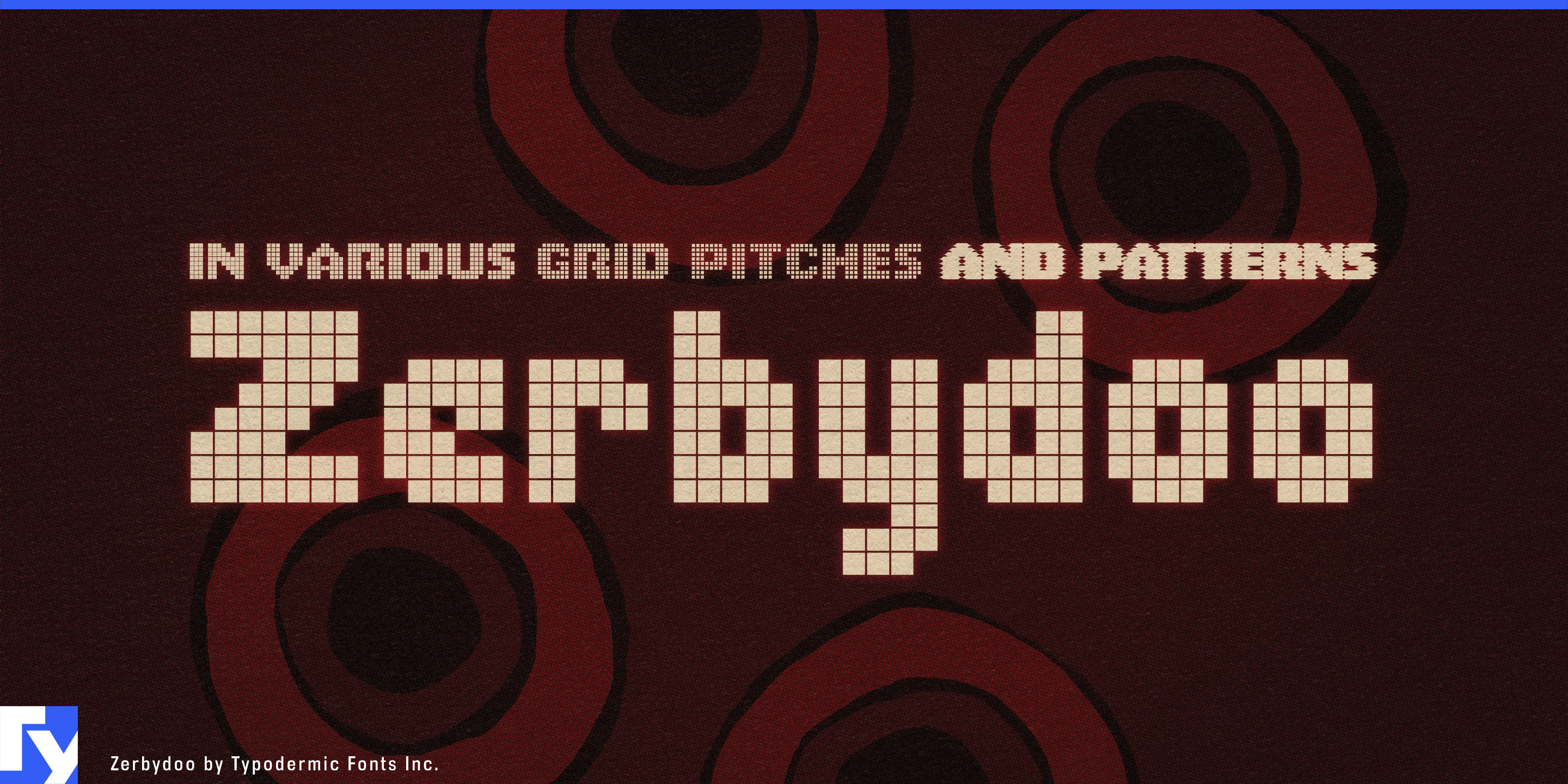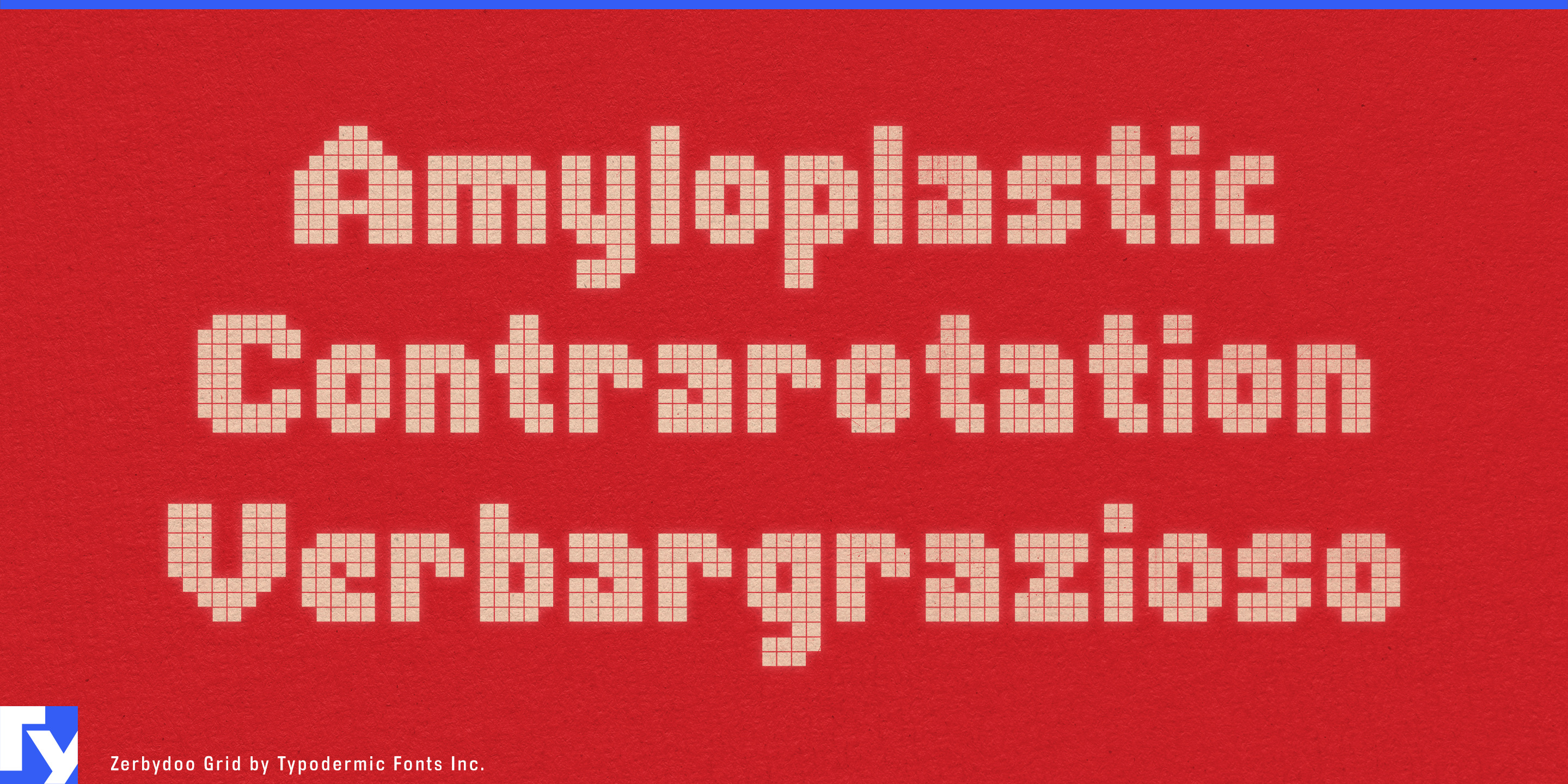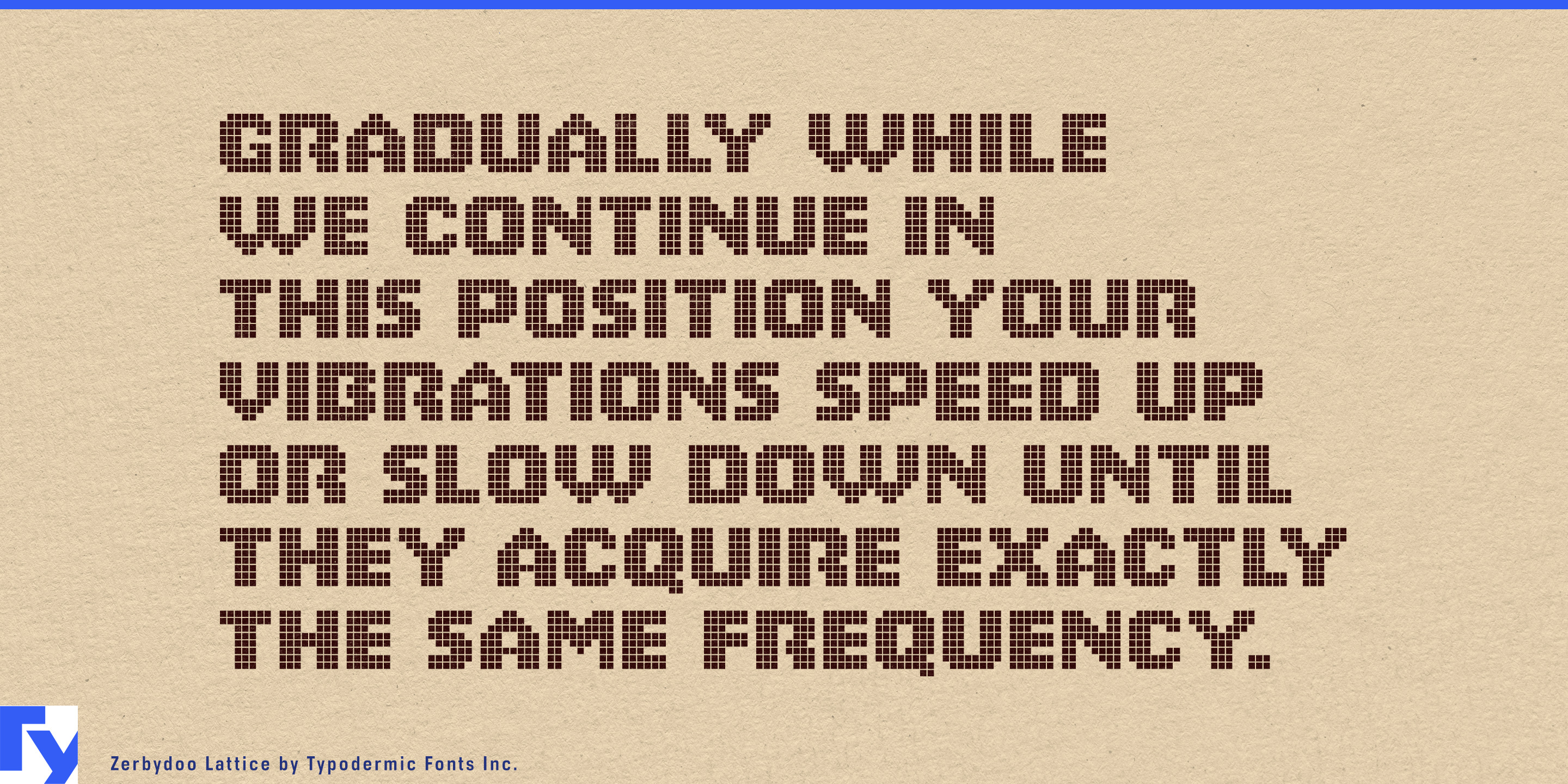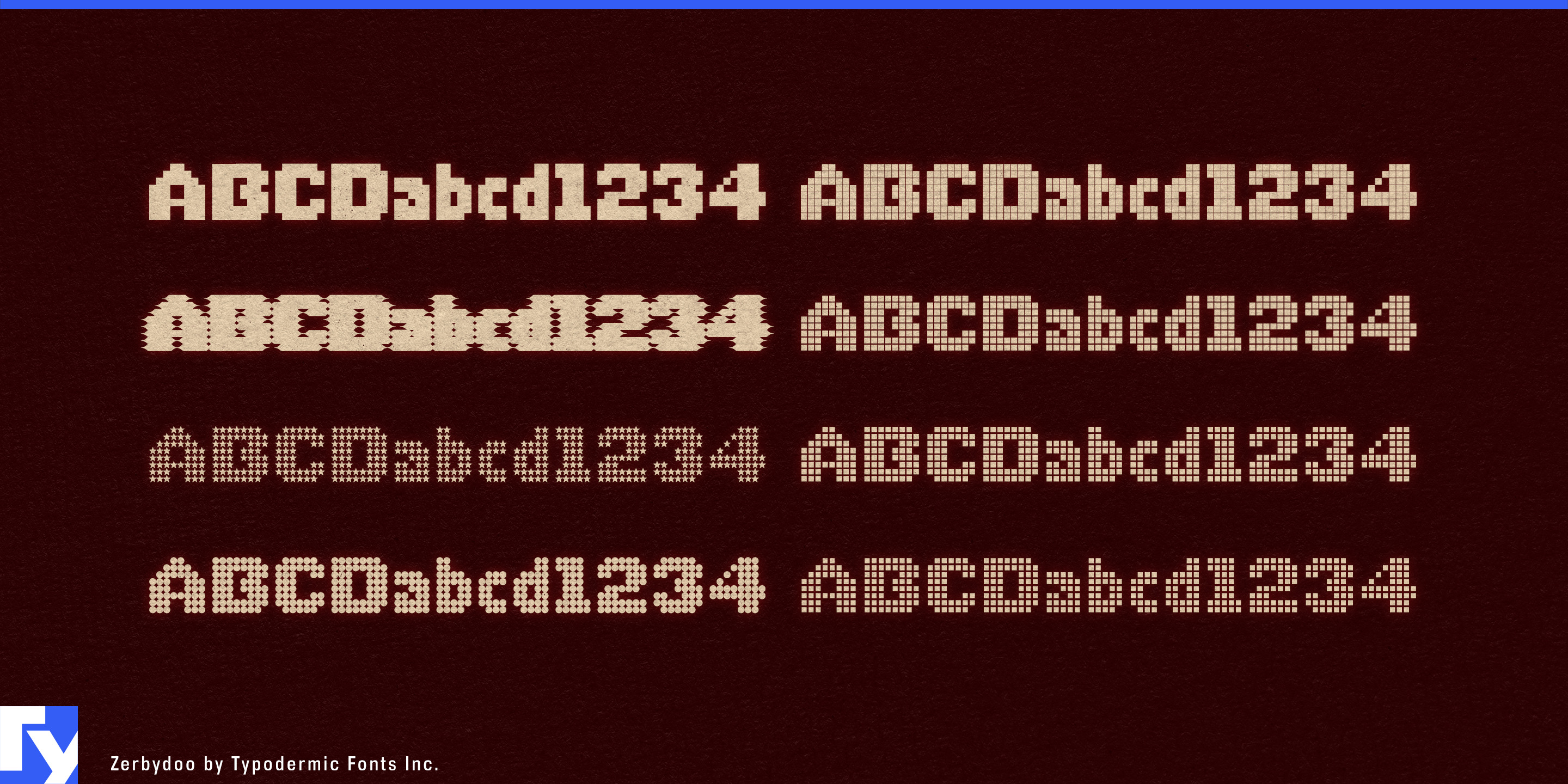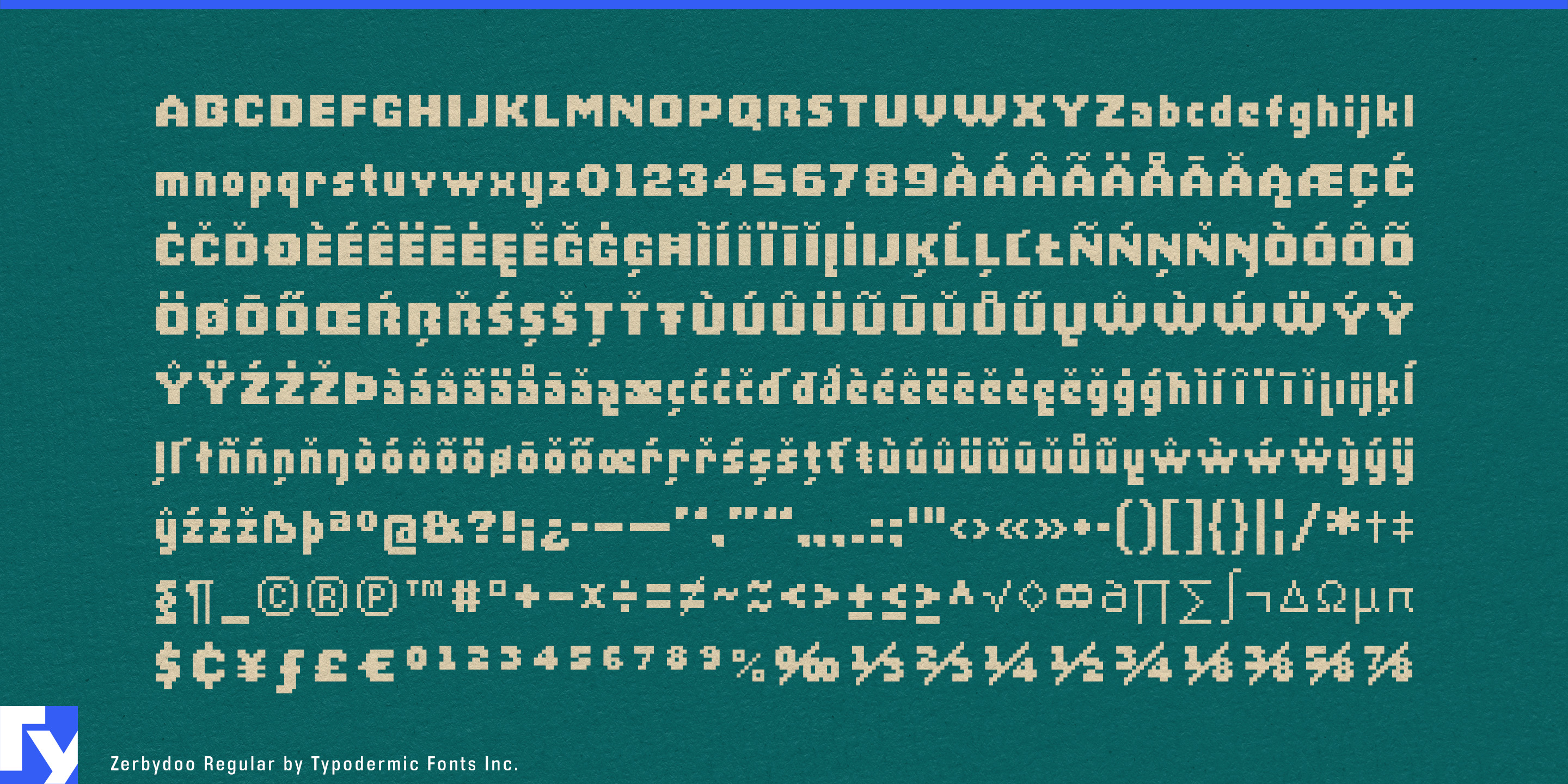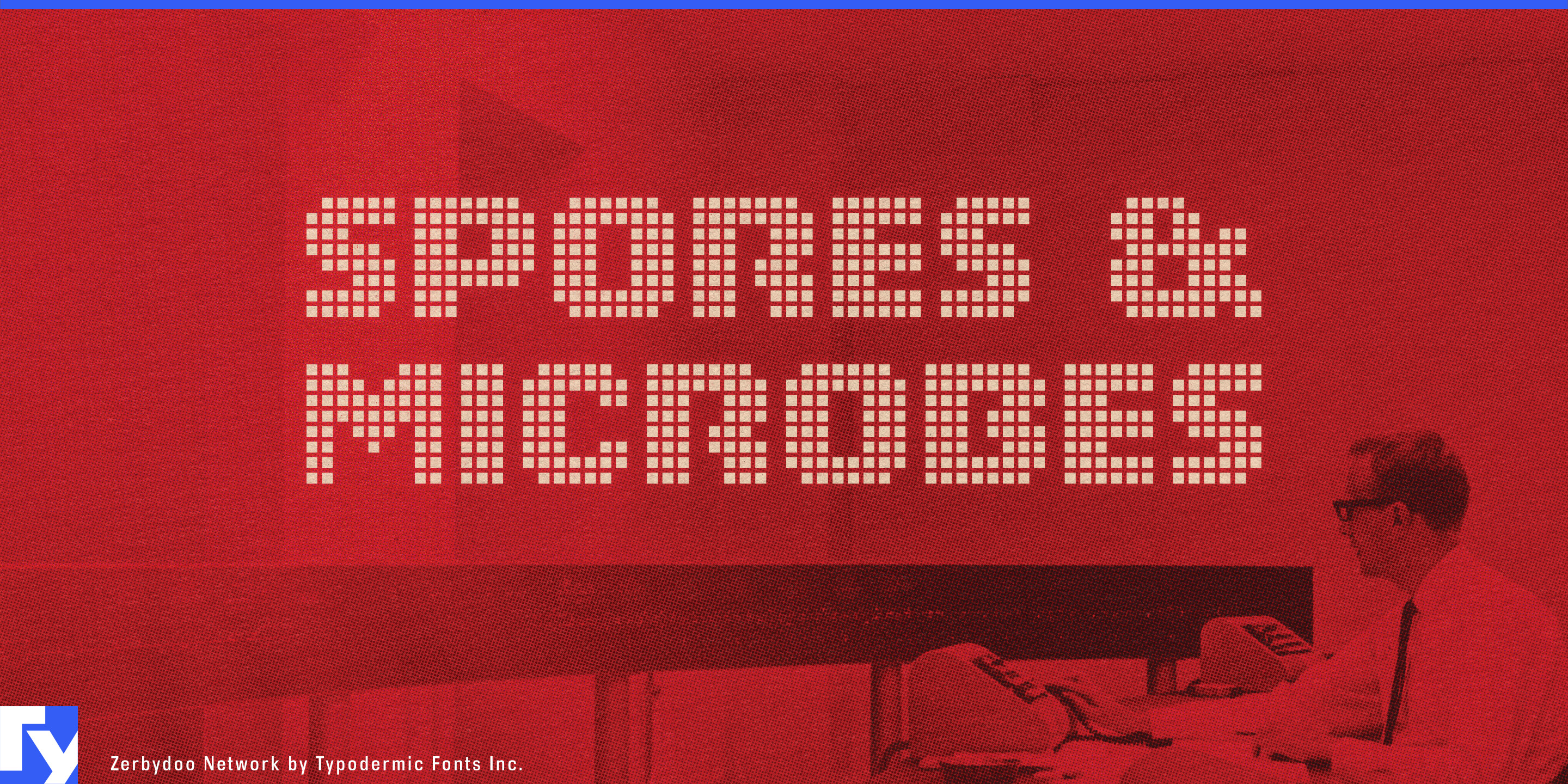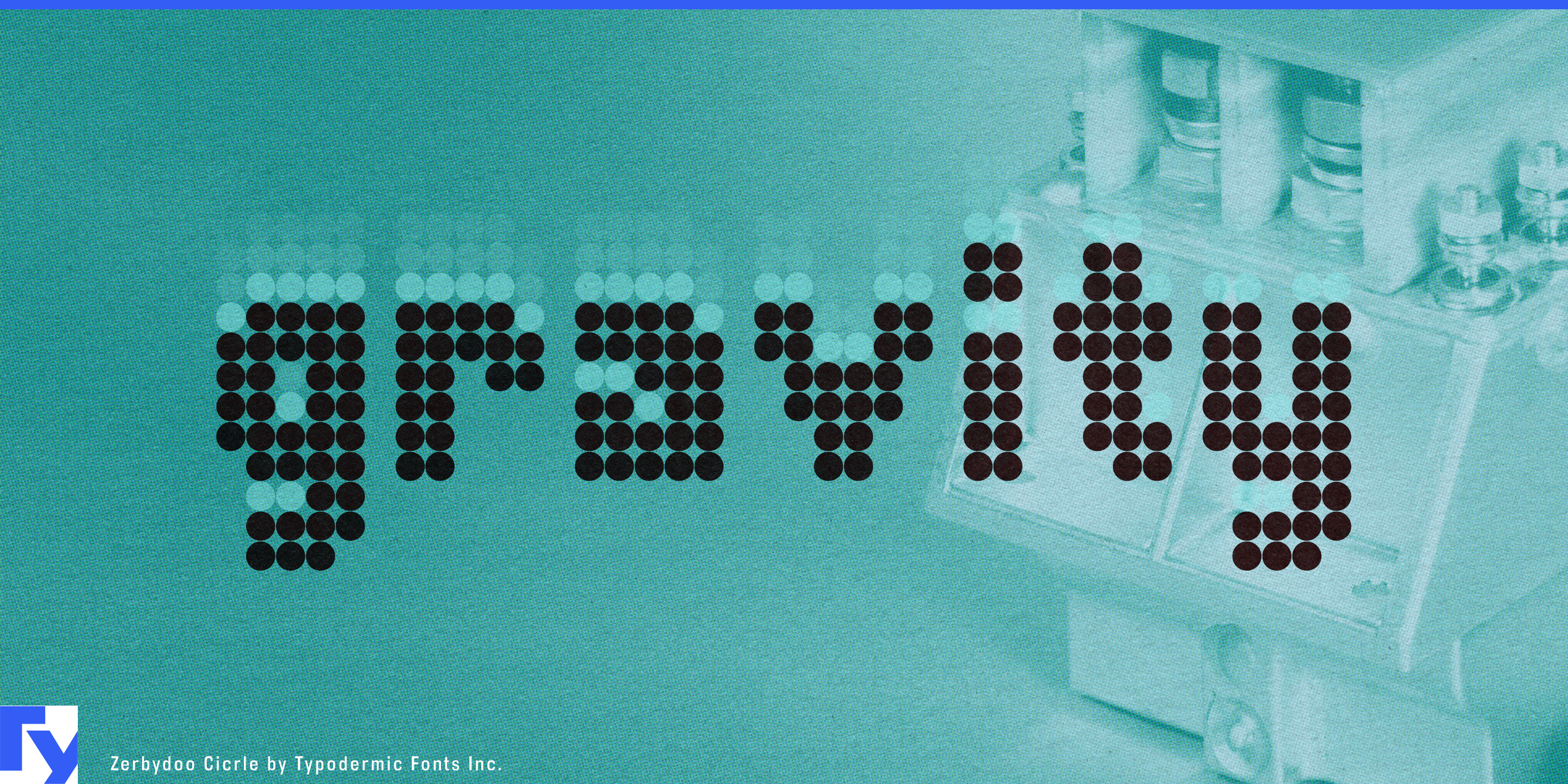
Zerbydoo
Zerbydoo is a pixel family made to become more interesting as it gets larger. Most pixel fonts use the grid as a means of drawing simplified letters; once the construction is understood, there is little else to see. Zerbydoo keeps that construction visible and develops it into grids, dots, screens, lattices, and repeating internal patterns. From a distance, the characters resolve into bold geometric words. Up close, those same words break apart into intricate modular surfaces.
Its eight styles are surface treatments rather than weights. Regular establishes the underlying pixel-built alphabet. Circle replaces the blocks with dots; Grid divides them into finer cells; Lattice introduces a chequered texture; Network resembles an array of illuminated units; Screen stacks horizontal bands with narrow apertures. Mesh and Star push the modules further into pattern and ornament. The shared letter structure remains recognizable while the apparent material changes.
This dual-scale behaviour makes Zerbydoo particularly effective in environmental graphics. Exhibition walls, trade-show entrances, festival stages, building wraps, retail-window vinyl, museum titles, and large directional landmarks can be read across a room while rewarding a closer view. The internal lines prevent oversized lettering from becoming a flat expanse of colour. They supply texture without applying a separate pattern over the type, because the pattern already belongs to the letterforms.
The modular construction also suggests physical processes. Zerbydoo can recall tiled mosaics, LED arrays, perforated metal, ventilation screens, ceramic grids, punched cards, architectural mesh, and stitched patterns. That makes it useful for graphics about fabrication, engineering, and systems: semiconductor conferences, robotics competitions, materials-science displays, microscopy exhibitions, data-centre wayfinding, and educational installations about cellular structures or sensor networks. The different styles can shift the association from mechanical assembly to biological growth without abandoning the same underlying alphabet.
Repetition gives Zerbydoo a natural place in electronic music and audiovisual design. It can structure modular-synth packaging, sequencer interfaces, techno label identities, electronic festival screens, stage projections, and performance titles. Motion designers can switch among the related styles to make a word appear to populate, scan, perforate, or rebuild itself.
The pixel is Zerbydoo’s starting unit, not its finished effect.